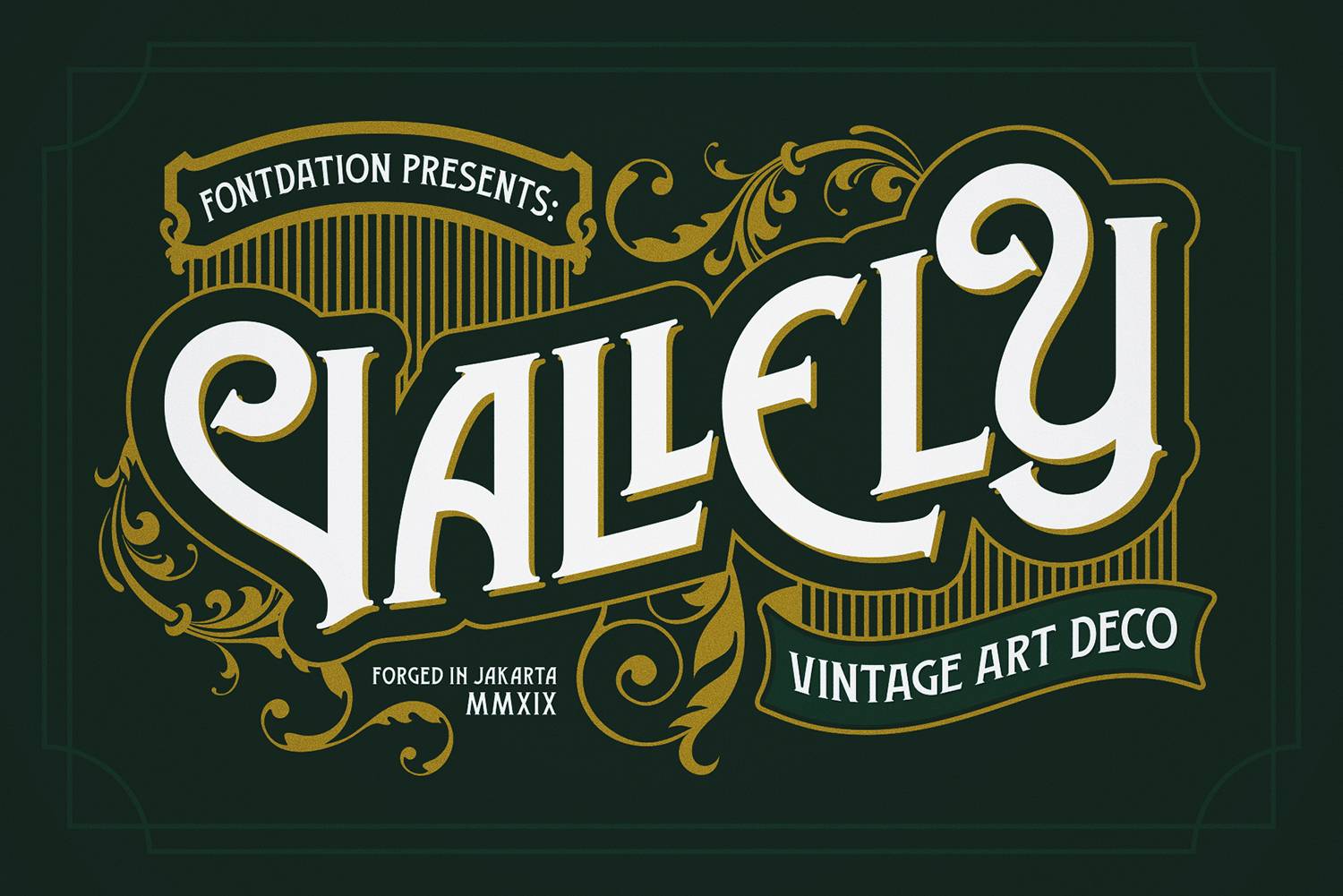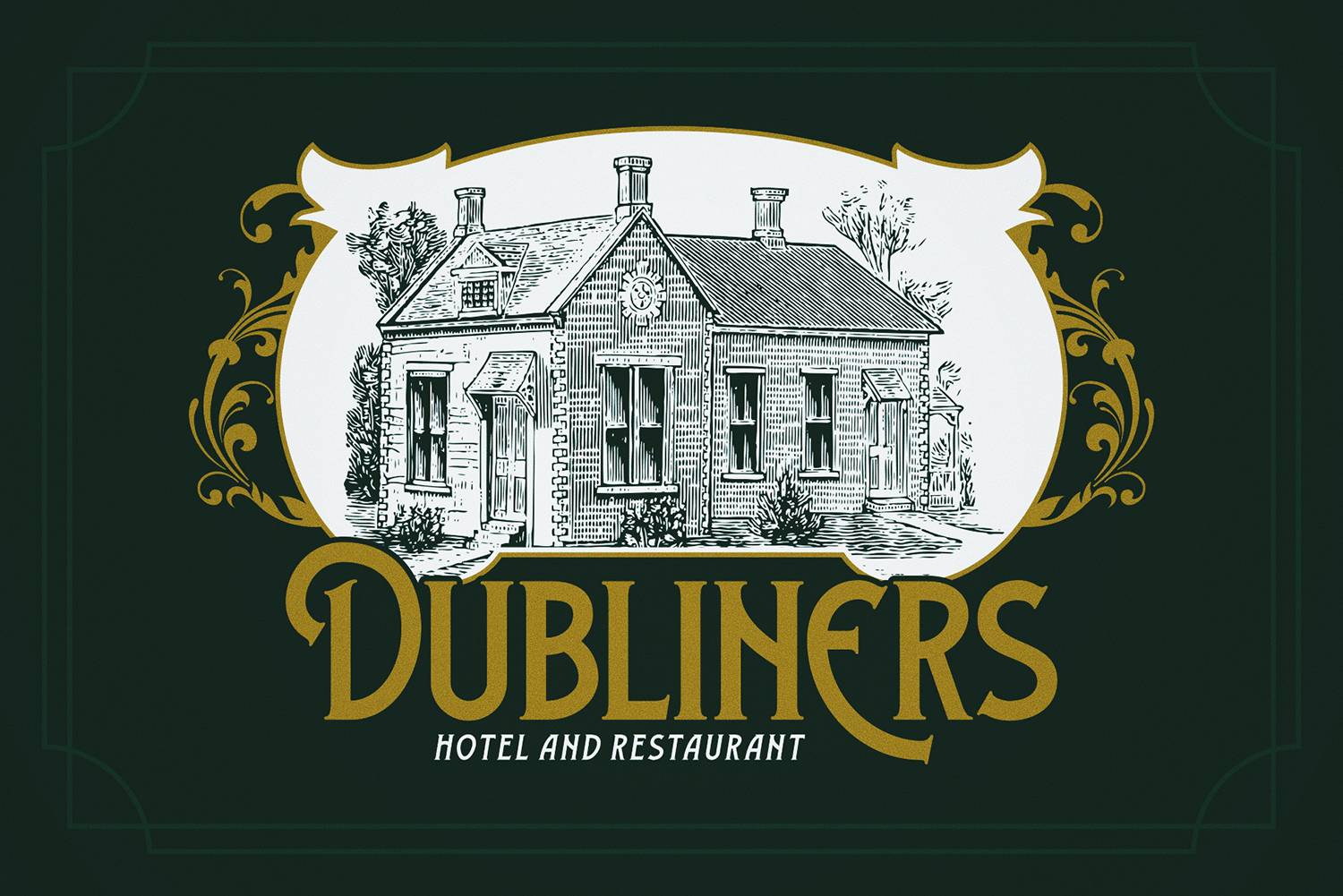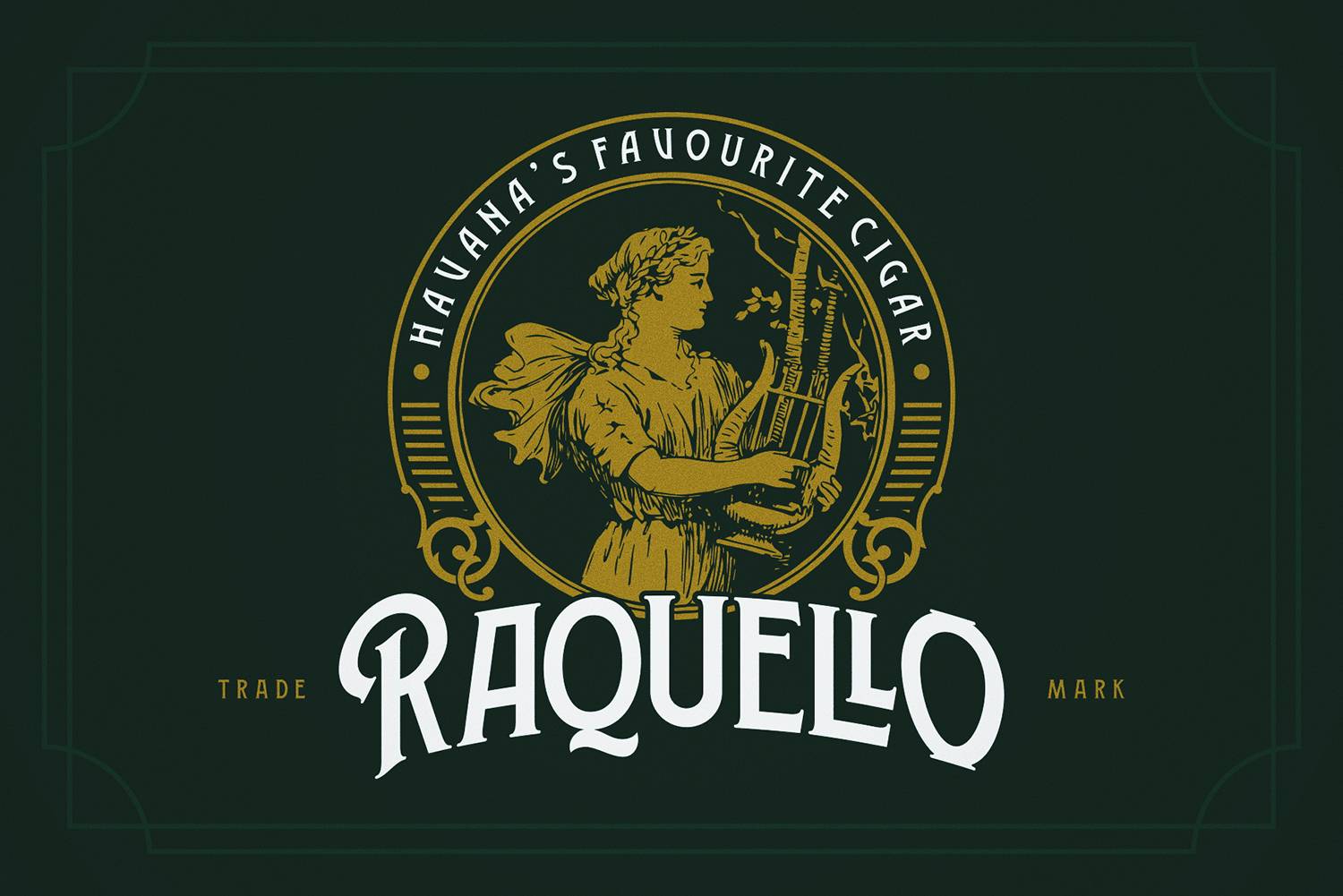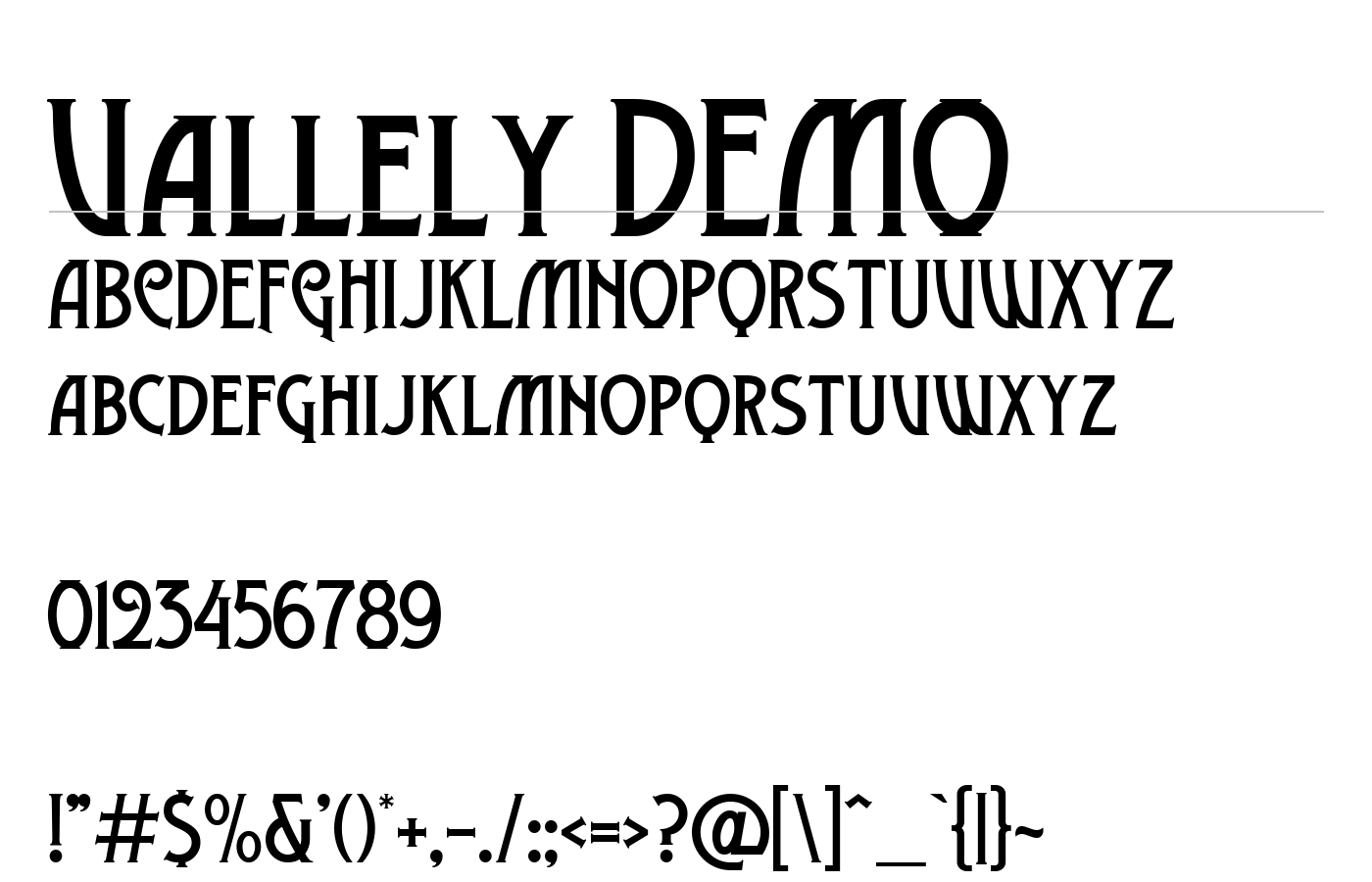
Vallely is a distinctive serif font with a blend of vintage and art deco influences, characterized by its high contrast between thick and thin strokes and unique, slightly condensed letterforms. It features elegant, sharp serifs with subtle curves and decorative flourishes, giving it a sophisticated yet playful personality ideal for headlines, logos, and branding that seeks a classic but creative touch. This font works best in display contexts where its artistic details can shine, making it perfect for fashion, editorial, and luxury packaging projects.
Vallely Font
About Vallely Font
| Font family | Vallely Font |
| Release date | 2019-02-10 |
| Designer | Twicolabs Fontdation |